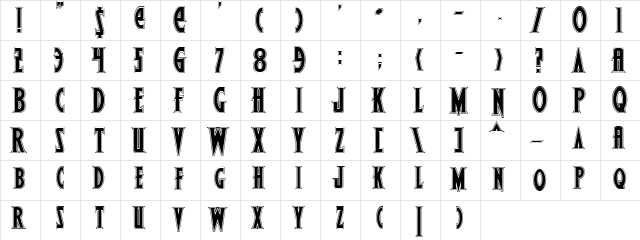
Wolf's Bane Bold Pro Bold Pro
Design Context for Wolf's Bane Bold Pro Typeface
Wolf's Bane Bold Pro is a composed and adaptable typeface that performs quietly and consistently across a wide range of design contexts. Its bold stroke weight gives it real presence on the page.